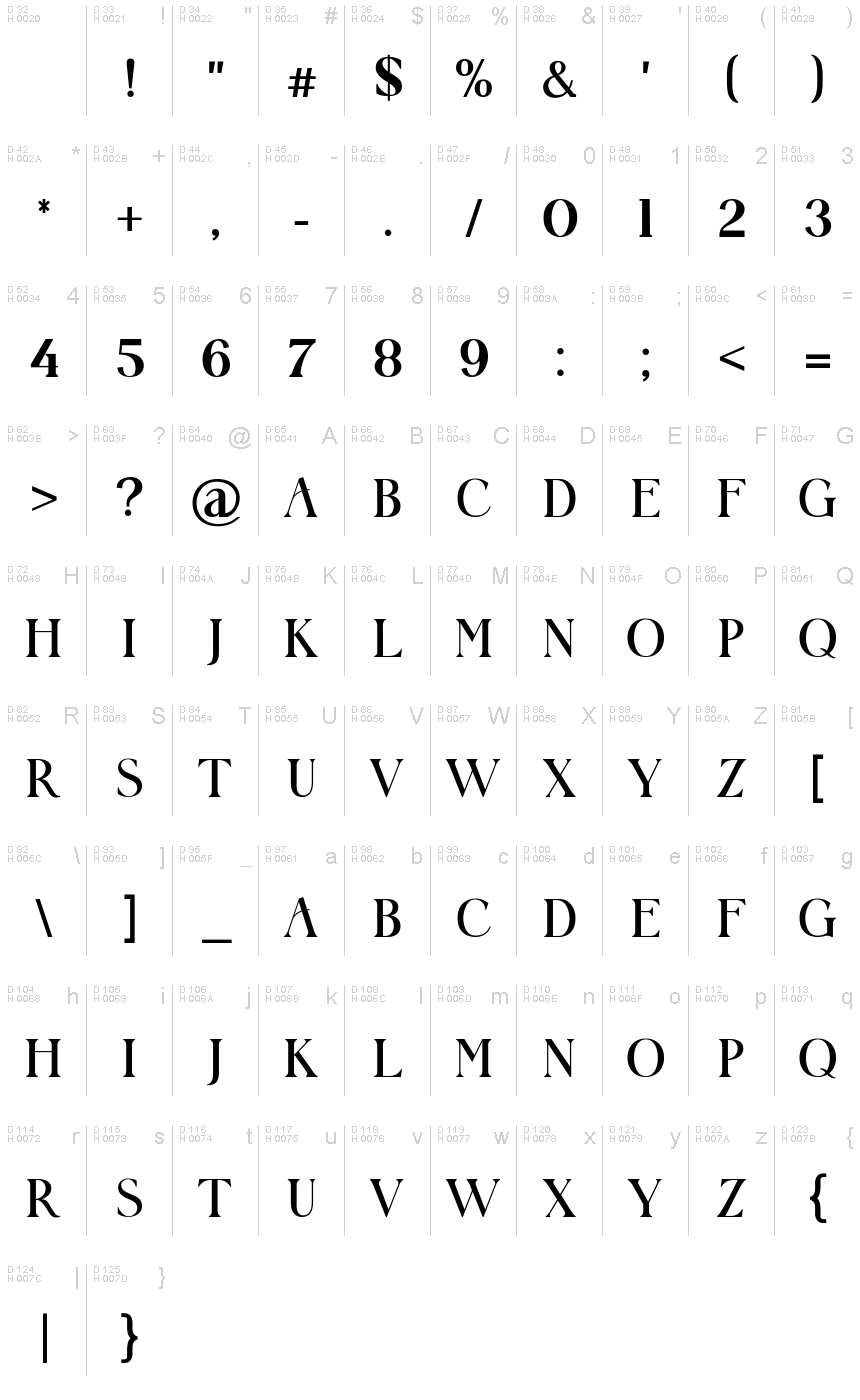
Womack
Womack is an elegant serif masterwork by UI Creative that blends classic and modern styles. With its smooth curves and thin, delicate serifs, it will always be fashionable, which makes it great for high-end business branding as well as magazine layouts targeted at sophisticated readers. The bold variation in line thickness creates a spectacular visual effect that would be ideal for luxury clothing brands or expensive glossy magazines.
Womack, a free font download, can let designers add class and refinement to their projects. The title has the flexibility required when you need to make an impression while the body text is readable with its graceful structure.
In case you are making wedding invitations or any other upscale brand materials then Womack is what you should go for if good taste and elegance matter to you. Try this beautifully designed serif font out on your artistic endeavors today.